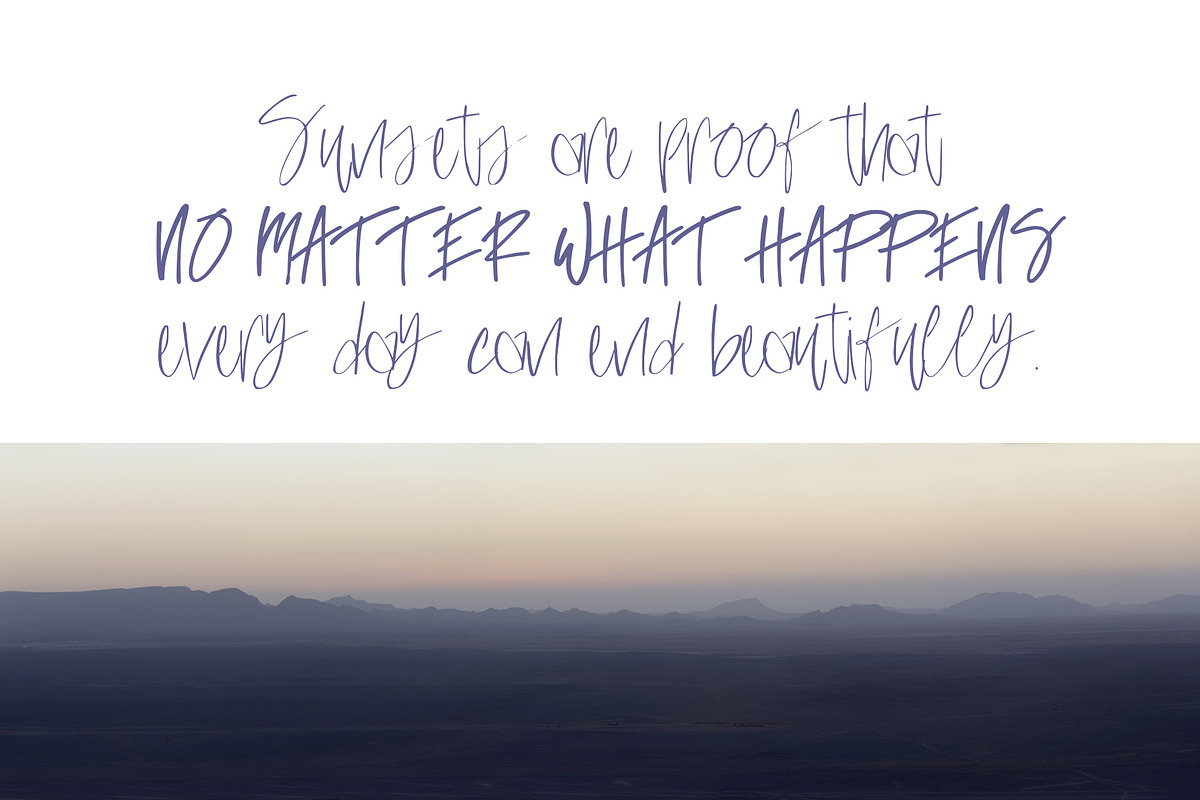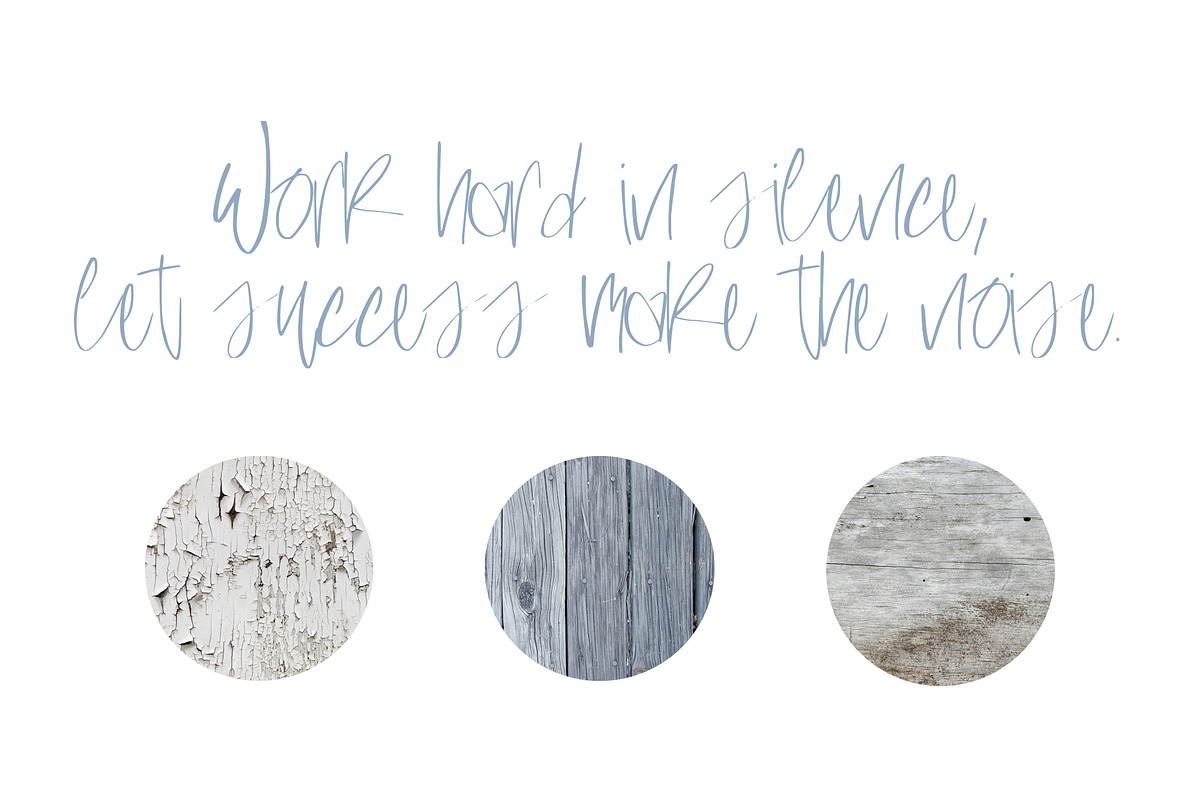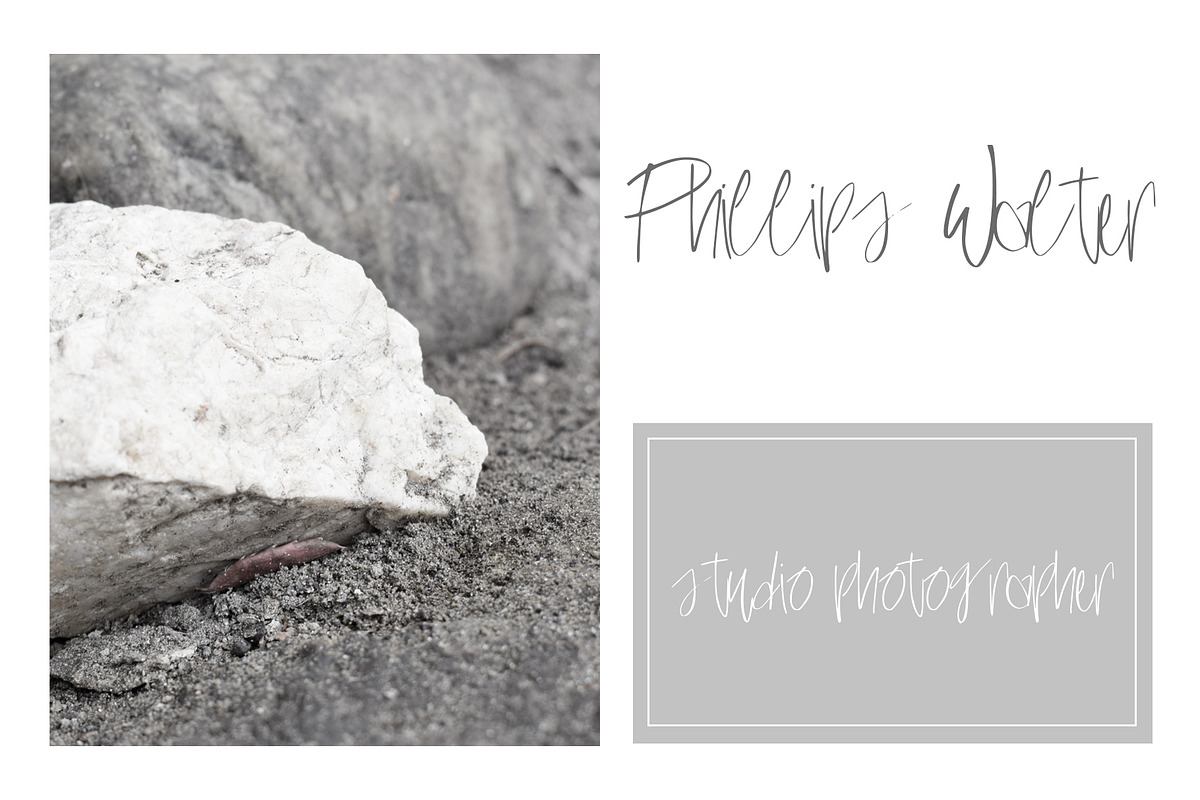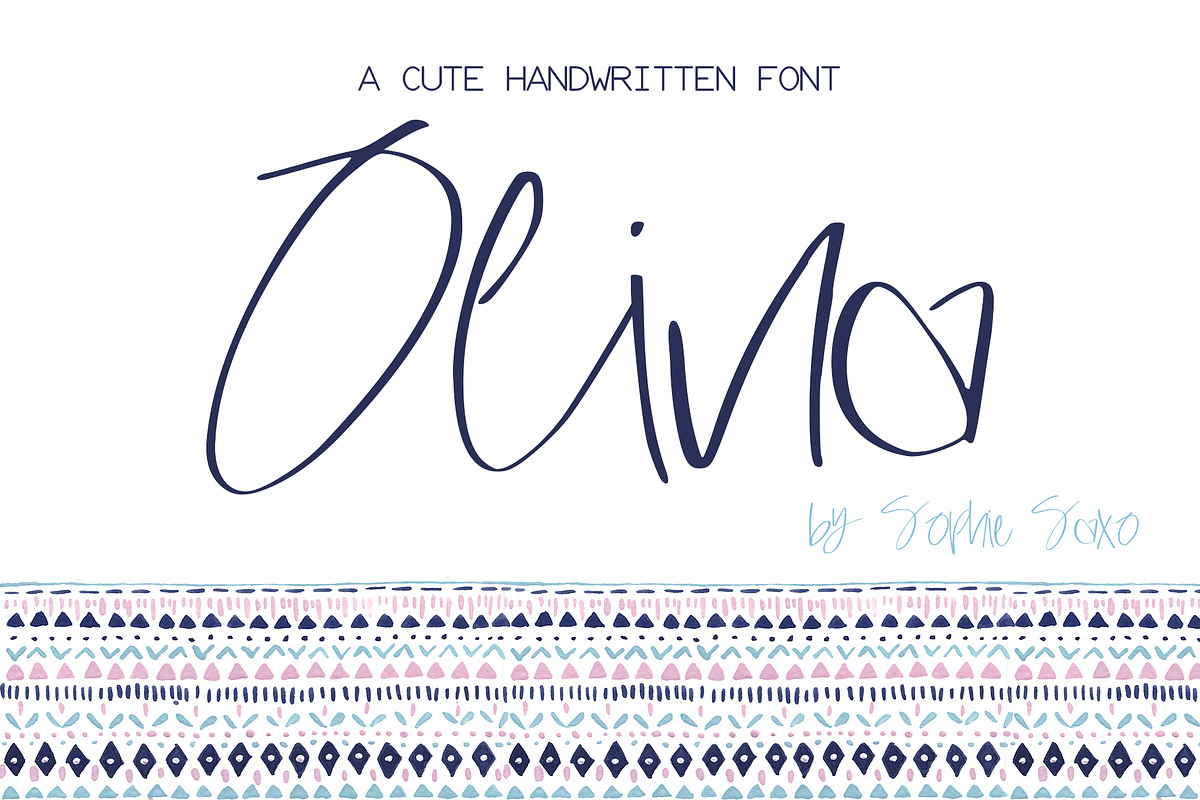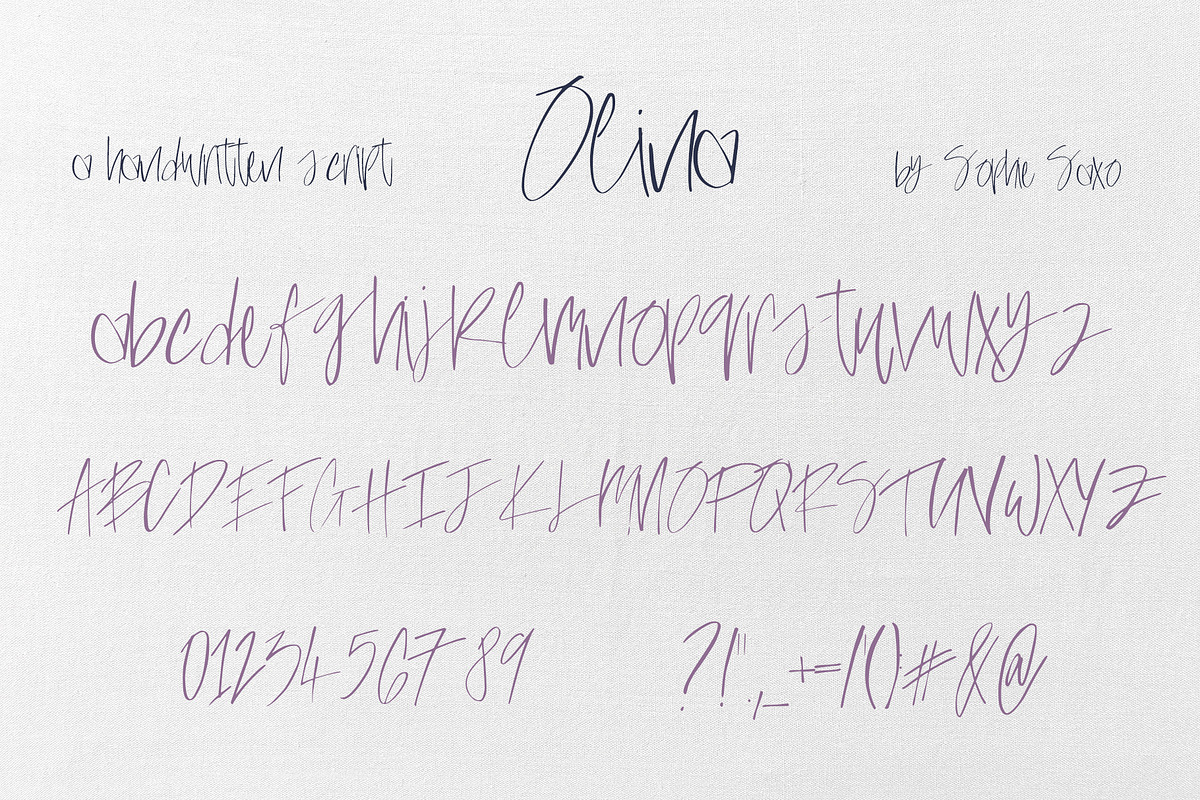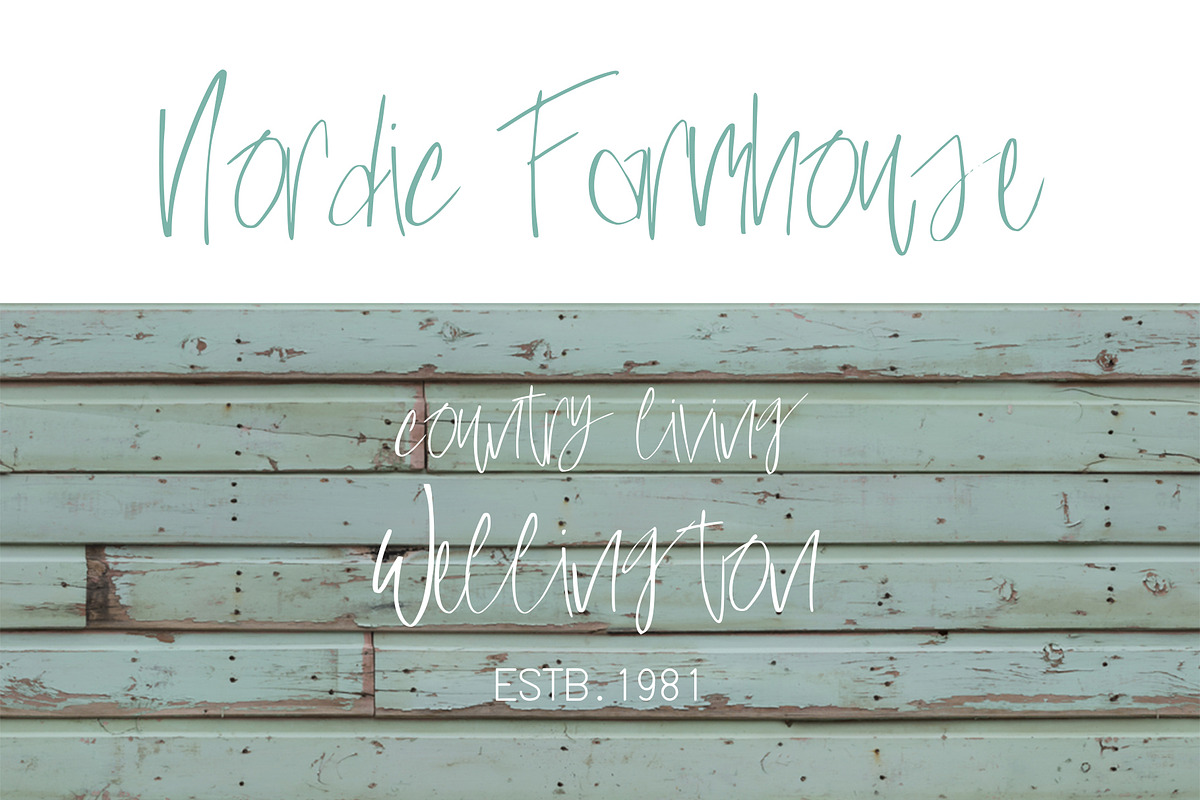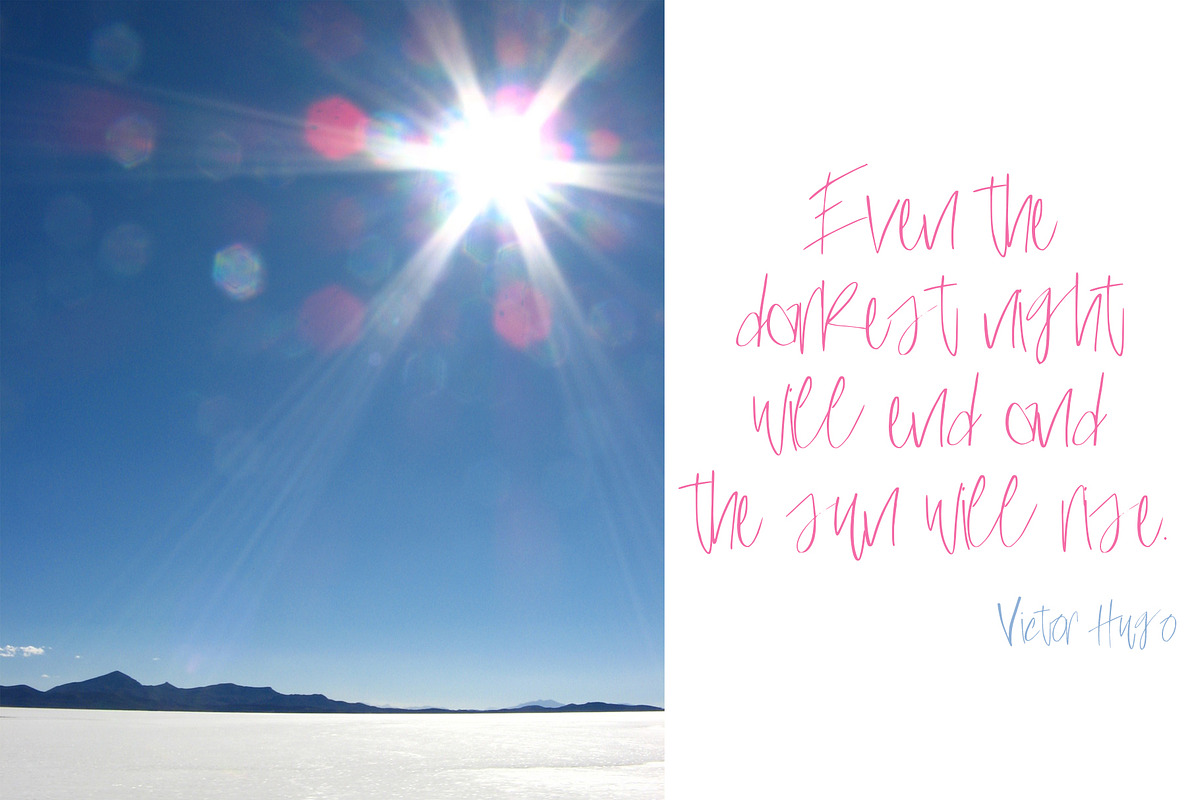
Olina Font
Introducing Olina, a beautiful handwritten font.💗 A lovely feminine script with soft light curves. Perfect for any calligraphic and logo designs, birthday and wedding invitations.
- Olina font contains upper & lowercase characters, full set of punctuation and numbers.